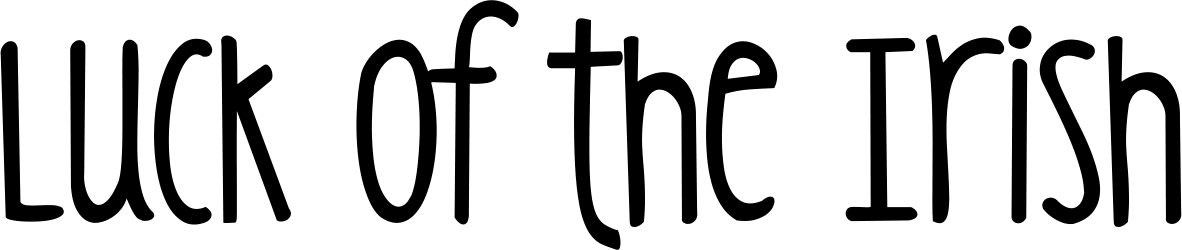
KG Luck of the Irish Font
Designed byKimberly Geswein
Say hello to a handwritten bullet journal font and use it for your typography projects. KG Luck of the Irish with thin and tall letters can be used for casual and friendly aspects such as; school flyers, books, posters, and so forth. Just try it out and see how astonishing it looks.